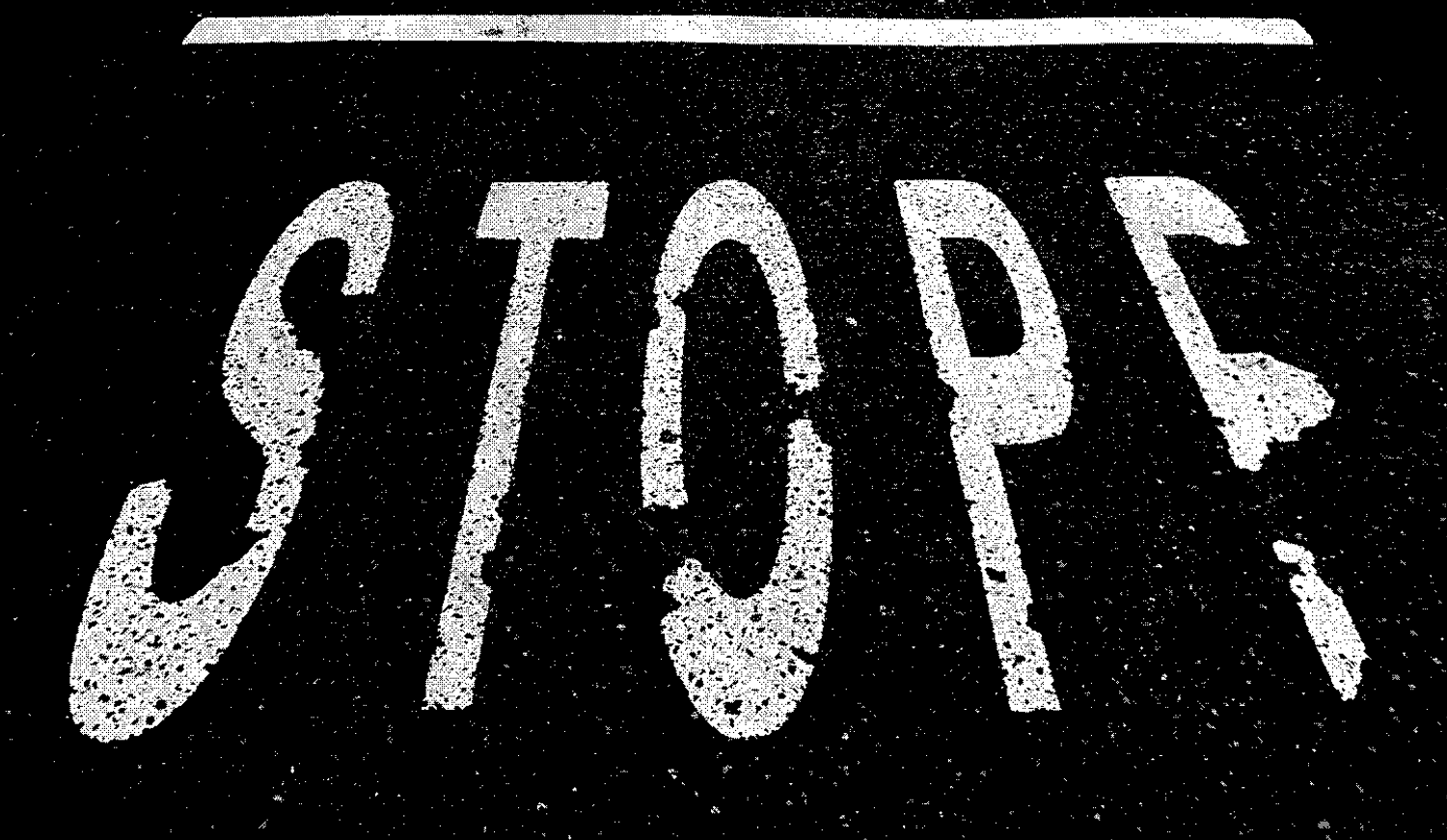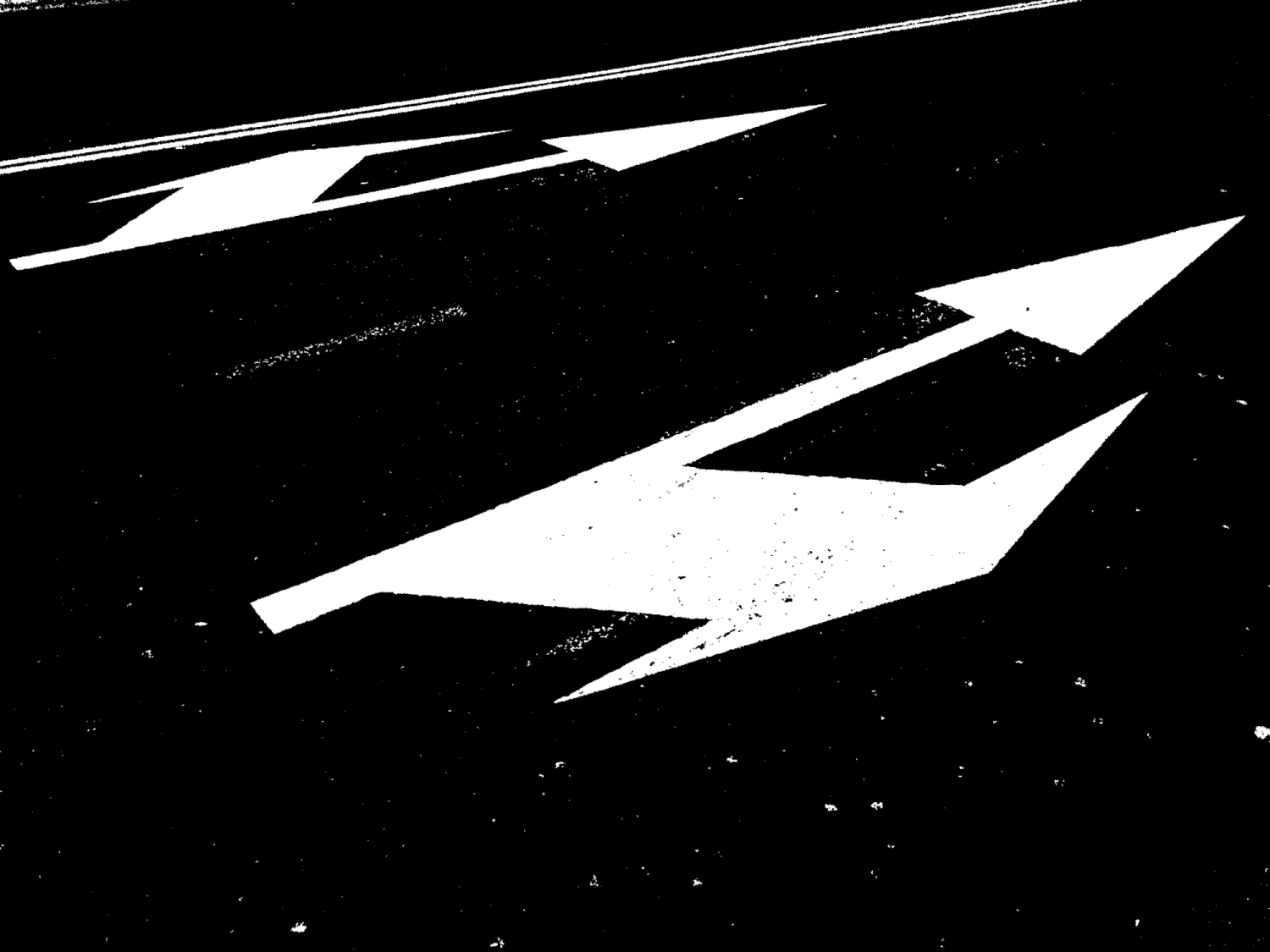
Together with its more perplexing sibling Anamorphe, Manoeuvre explores the perceptional phenomenon of perspective anamorphosis.
Stretched out between graphic encryption, mannerist gimmickry and utilitarian necessity, these two families each indulges in their own aspect of intentional letter distortion.
Manoeuvre
Manoeuvre Medium + Ball Terminals (ss01)
Manoeuvre Regular
Manoeuvre Medium
Manoeuvre Light
Manoeuvre Heavy + Seriffed I (ss02) | Regular | Light
Manoeuvre Thin + Ball Terminals (ss01)
Manoeuvre Heavy | Light
Manoeuvre Medium | Light + Ball Terminals (ss01) + Seriffed I (ss02)
Ball Terminals
GENTRIFICATION
Seriffed I
PUBLIC SERVICE
Speed Limits
5 30 90
Arrow Dash 1
←—→
Arrow Dash 2
🢐—————🢒
Geometric Variants 1
❱❱ ▖▘▖▘
Slashed Zero
USD 100
Contrary to Anamorphe’s extraordinariness, Manoeuvre references a more quotidian occurrence of anamorphosis employed in asphalt road markings.
Whereas the reverse contrast typefaces of the Victorian era sought primarily to attract attention, the horizontal weight distribution of traffic lettering arises from functional necessity. These equally “perverted” letterforms compensate for the perspective distortion arising when encountered at an acute angle.
Two main approaches are used in the application of asphalt lettering. The first one is a freehand, stroke-based method using a road marking die shoe, with the occasional double or triple stroke for horizontal emphasis.
The other — using prefab stencils often digitally distorted — is akin to the ruthless stretching of type often practiced by design amateurs. This non-proportional “abuse” of lettershapes was long considered an absolute no-go in typography, provoking an outcry of professional snobbery. In recent years though, this “wrongness” got a bottom-up redefinition, becoming a cultural marker rather than a demarkation separating experts from “ignorants”. Today, stretched type both of its horizontal and vertical variety has been elevated to a style, if not even a genre. In its raw urgency, this graphic nihilism shows an aloof awareness, an unfiltered cultural je-ne-sais-quoi desired by many.
Acrylic Ortho, "bratified" for cultural reference; background-color: #8ACE00;
In the case of asphalt lettering, the deliberate distortion of letterforms exposes a curious contradiction. The initial intent of an official, authoritative voice is counteracted by the resulting comically alienated shapes; a letter style baring its own authority.
This genre has been prominently translated into digital type in recent years: Lineto’s Pirelli, Dinamo's Asfalt, Production Type's Signal Compressed, Plaak by 205tf and the recently released Cockpit by Mario Feliciano; just to mention a few.
Distorted and distressed.
The translation of a technical or optical necessity from one medium into the formal domain of type is an ongoing fascination in the field. In this parasitical move from functional fundamentals to stylistic device, typography might be at its most honest; aesthetic appropriation being at its core from the very inception.
Without any specific letter model in mind, Manoeuvre’s six static weights aim to amplify the weirdness springing from a quintessentially utilitarian area of use. Gradually exaggerating the contrast between horizontals and verticals leads to the eventual collapse in the absurdly abstracted Black style.